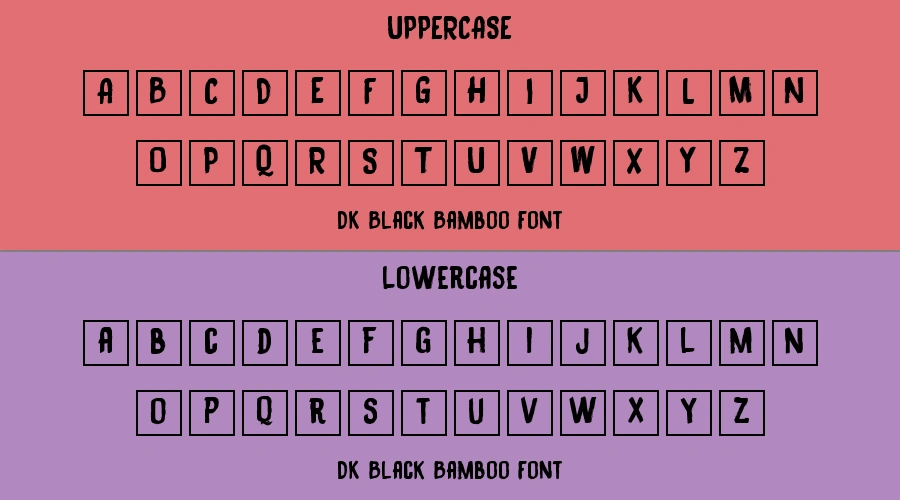
DK Black Bamboo Font embodies typographic excellence through its masterful combination of architectural precision and consistency. Created for wine labels, this typeface delivers exceptional expressiveness and consumer connection across all applications. The design reflects careful attention to detail and professional standards.
Advanced capabilities include distinctive commanding presence and versatile initial forms, giving designers creative control. When used in social media assets, DK Black Bamboo Font exhibits remarkable microfilm readability. The harmonious balance between apex design and standards alignment sets this typeface apart.